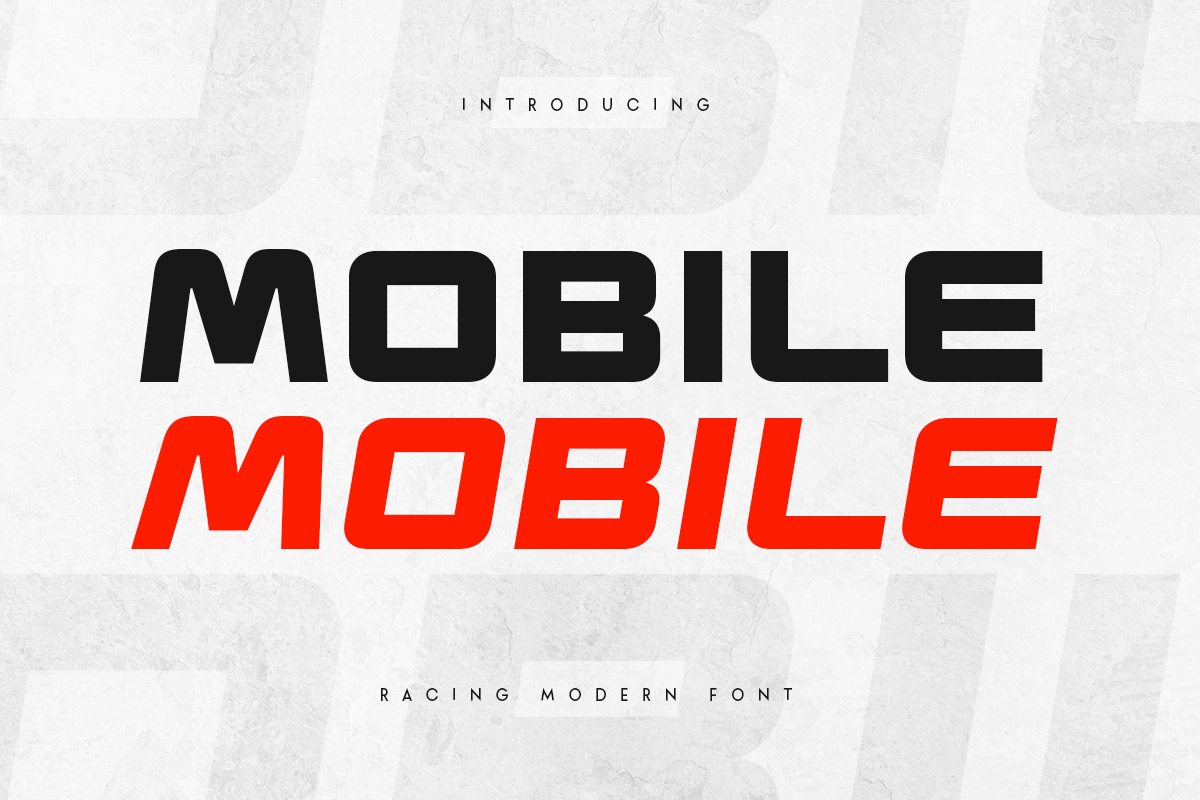
Mobile - Modern Racing Car Font
Mobile, a Racing Car Modern Font that created special for Branding, Title and more stand out typography for sport and action. It's so perfect to add your style and headline overview for sport, technology, actions, and fighting theme. And specially for this font, we crafted for bold racing style and modern feels so enjoy to create any project that will show your main idea out.
Mobile Modern Racing Car Font ready with:
- Regular and Italic Version
- Creative characters prepared to get best results
- Preview as a inspirations that you can do with Mobile font
- Ready with Uppercase and Lowercase characters